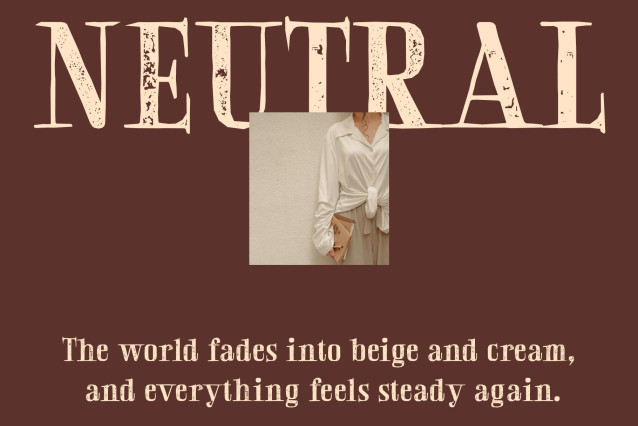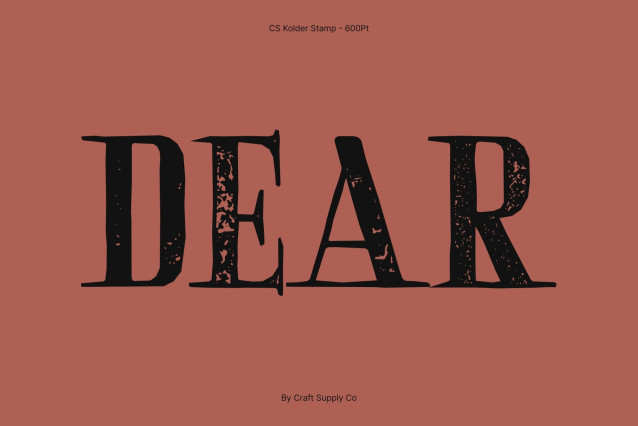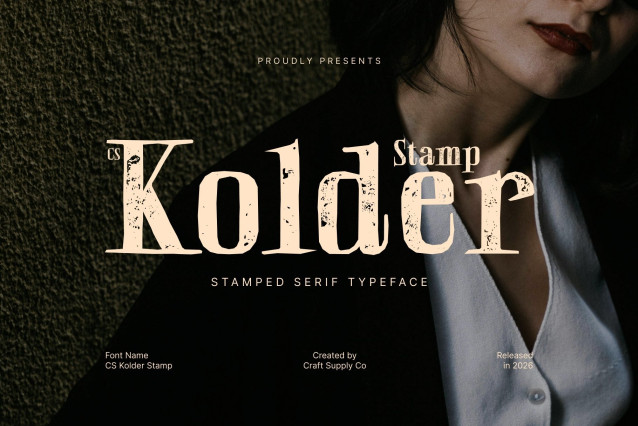
CS Kolder Stamp – Serif Font: Timeless Elegance Meets Vintage Character
Elegant Modern Serif with Textured Stamp Finish
This is a modern serif font that exudes sophistication through clean lines and balanced proportions. Enhanced with a stamp effect, the letterforms gain subtle distress, soft ink textures, and organic imperfections, transforming its polished structure into a refined serif with a vintage artistic touch.
Luxurious Feel with Handcrafted Readability
Featuring slender characters and delicate serif details, this font blends luxury with functionality. The stamped texture adds warmth and authenticity while maintaining excellent readability, making it ideal for branding, invitations, editorial layouts, packaging, and marketing materials.
Versatile for Classic and Contemporary Design
This font adapts effortlessly across a wide range of applications. The combination of modern serif elegance and old-print character creates a timeless aesthetic suitable for both traditional and contemporary projects.